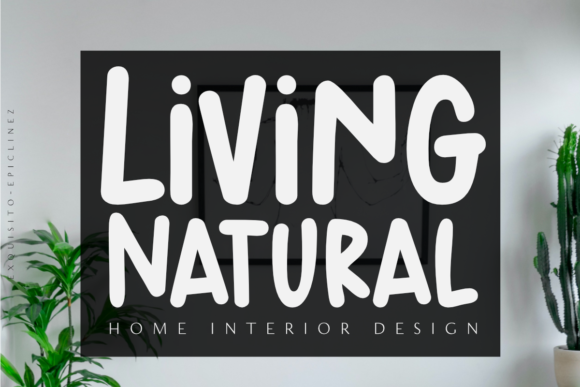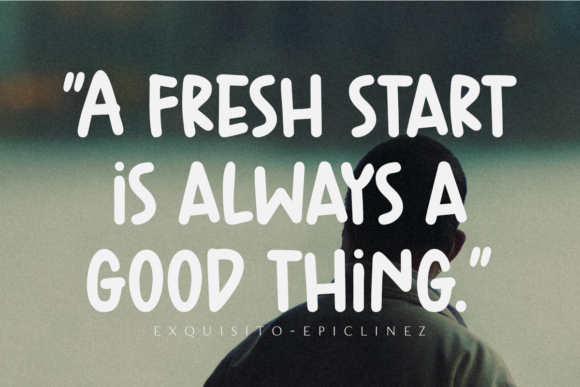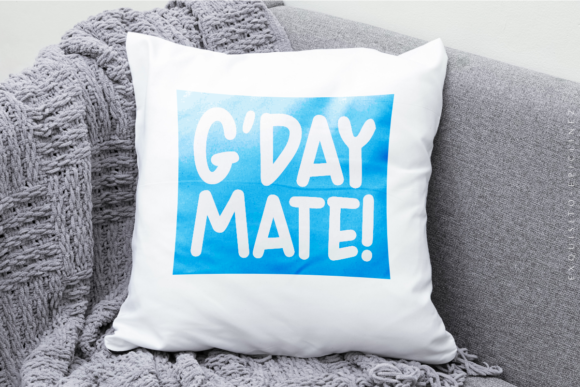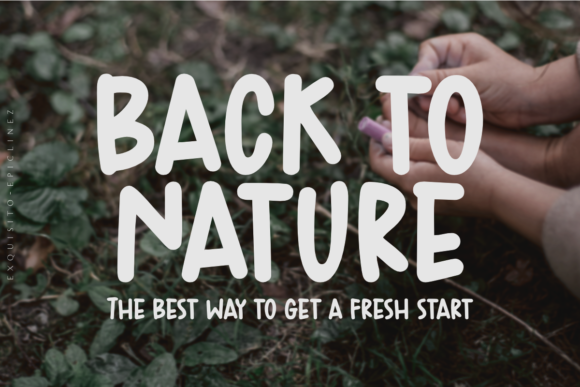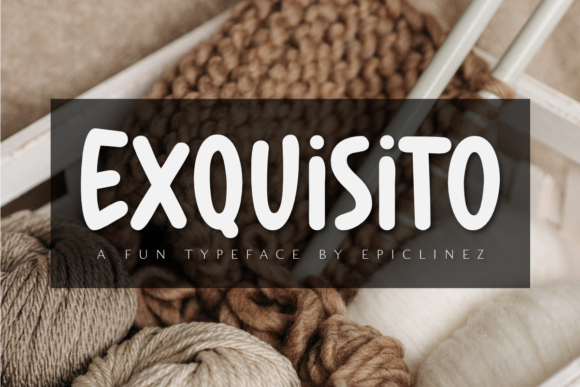
Introducing Exquisito Font: The Ultimate Display Font for Joyful Designs
Are you tired of using the same old fonts in your designs? Do you want to add a touch of fun and playfulness to your creative projects? Look no further than Exquisito Font! This stunning display font is designed to bring a joyful vibe to your designs, making them stand out from the crowd.
What is Exquisito Font?
Exquisito is a fun and playful display font that is perfect for designers and crafters who want to add a touch of whimsy to their work. With its unique and eye-catching design, Exquisito Font is sure to make your designs pop. Whether you’re working on a branding project, a social media graphic, or a craft project, Exquisito Font is the perfect choice.
Characteristics of Exquisito Font
So, what makes Exquisito Font so special? Here are just a few of its key characteristics:
- Fun and playful design: Exquisito Font has a unique and playful design that is sure to add a touch of joy to your designs.
- Display font: Exquisito Font is a display font, making it perfect for headlines, titles, and other large text elements.
- Highly legible: Despite its playful design, Exquisito Font is highly legible, making it easy to read even at smaller sizes.
- Versatile: Exquisito Font can be used in a wide range of design projects, from branding and advertising to crafting and DIY projects.
How to Use Exquisito Font in Your Designs
Exquisito Font is incredibly easy to use in your designs. Here are a few tips to get you started:
- Use it as a headline font: Exquisito Font is perfect for headlines and titles, where its playful design can really shine.
- Add it to your branding: If you’re looking for a font that will help your brand stand out, Exquisito Font is a great choice.
- Use it in your craft projects: Exquisito Font is perfect for crafters who want to add a touch of personality to their projects.
- Experiment with different colors and textures: Exquisito Font looks great in a wide range of colors and textures, so don’t be afraid to experiment and find the perfect look for your design.
Why Choose Exquisito Font?
So, why should you choose Exquisito Font for your designs? Here are just a few reasons:
- Unique design: Exquisito Font has a unique and eye-catching design that will help your designs stand out.
- Easy to use: Exquisito Font is incredibly easy to use, even for designers who are new to working with display fonts.
- High-quality: Exquisito Font is a high-quality font that is designed to look great in a wide range of design projects.
- Fun and playful: Exquisito Font is the perfect choice for designers who want to add a touch of fun and playfulness to their designs.
| Font Name | Exquisito Font |
| Author | Epiclinez |
Key Features of Exquisito Font
| Font Type | Display Font |
| Design Style | Fun and Playful |
| Legibility | Highly Legible |
| Versatility | Suitable for a wide range of design projects |
- What is Exquisito Font?
- Exquisito Font is a fun and playful display font designed to add a joyful touch to your designs.
- What type of projects can I use Exquisito Font for?
- Exquisito Font is suitable for a wide range of design projects, including branding, advertising, social media graphics, and craft projects.